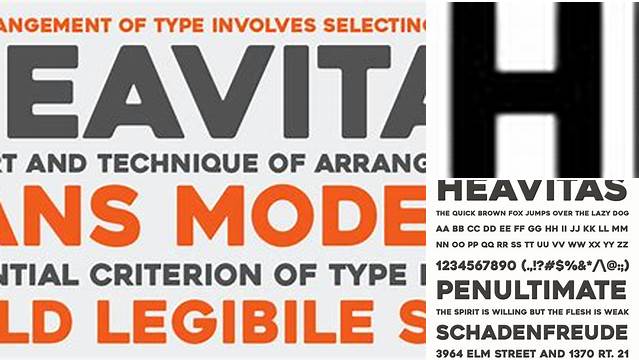
Hey guys! Are you on the hunt for a cool, versatile font that can elevate your design projects? Look no further! This article is all about the Heavitas Regular font free download. We'll dive into what makes this font special, where you can snag it for free (legally, of course!), and how you can use it to make your designs pop. Get ready to unleash your creativity!
Unleashing Creativity: Applications of Heavitas Regular Font
Now that you've got your Heavitas Regular font free download, let's talk about what you can do with it! This font is super versatile, making it a great choice for a variety of design projects. Think about it: this font can be used for everything from website headings and blog posts to posters, logos, and social media graphics. The clean, modern look of Heavitas Regular makes it perfect for both digital and print designs. It's readable and easy on the eyes, ensuring your message is clear and engaging. You can use it in a variety of applications and even combine it with other fonts to achieve a great effect. Remember that the use of the font is limited by its license, it’s very important to know where and how you are going to use it. The license will determine whether you can use the font for personal or commercial use. Be aware that the license can specify the type of usage. For example, you may be able to use the font for personal projects but not for commercial use. Always read and understand the license agreement before using the font, this will help you avoid legal issues. There are many options available in different websites, always make sure to compare the licenses and be aware of what you’re agreeing to, so you can use it correctly. This way you can avoid any legal issues and you will also be a responsible designer.
Heavitas Regular font free download is the best choice for a huge variety of projects. You can unleash your creativity! From website design to creating logos. The versatility of the font will amaze you and will take your creativity to the next level. You can also consider using it for printed materials like flyers or business cards, this font will make them more professional. Heavitas Regular font is easy to integrate with other fonts and create combinations that make your design more attractive. You can customize the font to meet your specific needs. You can change the size, color, and spacing, to make it visually appealing. Heavitas Regular is a great choice for any project that requires a clean, modern and easily readable font. You can combine it with others fonts to create beautiful results.
Decoding the Design: Features of Heavitas Regular
Let's take a closer look at what makes the Heavitas Regular font free download so special. It's a sans-serif font, which means it doesn't have those little decorative strokes (serifs) at the ends of the letters. This gives it a clean, modern look that's perfect for a variety of applications. The font is known for its legibility, even at smaller sizes, making it ideal for body text in your designs. This readability is one of its key strengths, ensuring your audience can easily understand your message. The font's design is balanced and well-proportioned, which gives it a professional and polished feel. It doesn't overwhelm the reader but instead enhances the overall design. The font's simplicity allows it to be used in various contexts without clashing with other design elements. The clean lines and consistent weight of the font create a visual harmony that is pleasing to the eye. The design elements allow it to be used for different purposes, from website headings to body text, making it a versatile choice for any designer. When choosing a font, it's important to consider factors such as legibility, style, and the overall message you want to convey. Heavitas Regular excels in all these areas, making it a top choice for designers. Remember that choosing the right font can greatly impact the effectiveness of your designs, so take the time to explore different options. When considering your options, also think about the aesthetic of the font and if it aligns with the image that you want to project for your brand or project. Keep in mind the readability of the font, as well as the style and your brand's message. Make sure the font aligns with your goals.